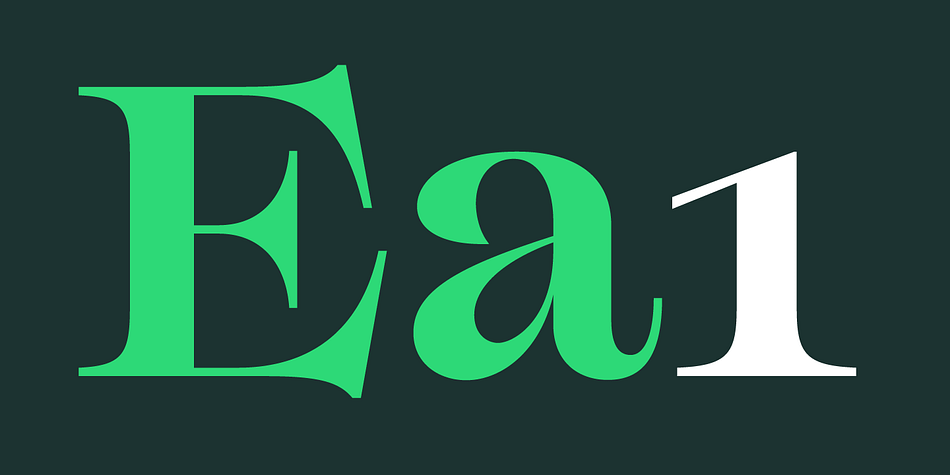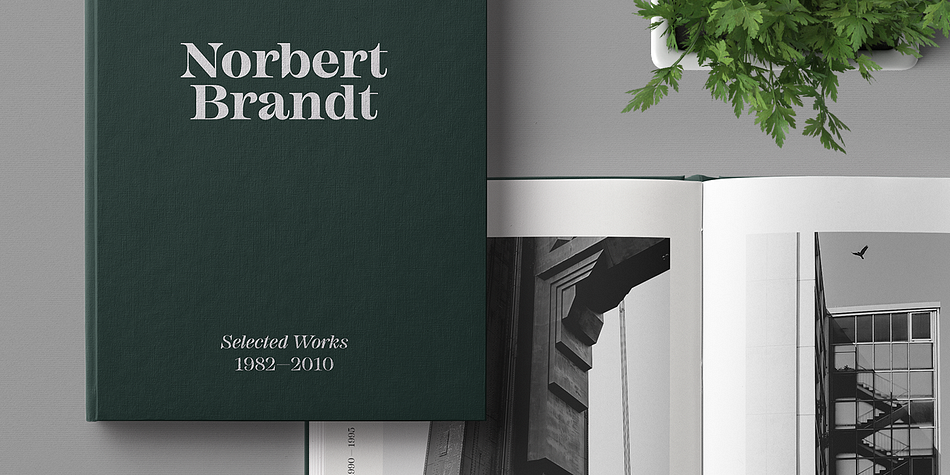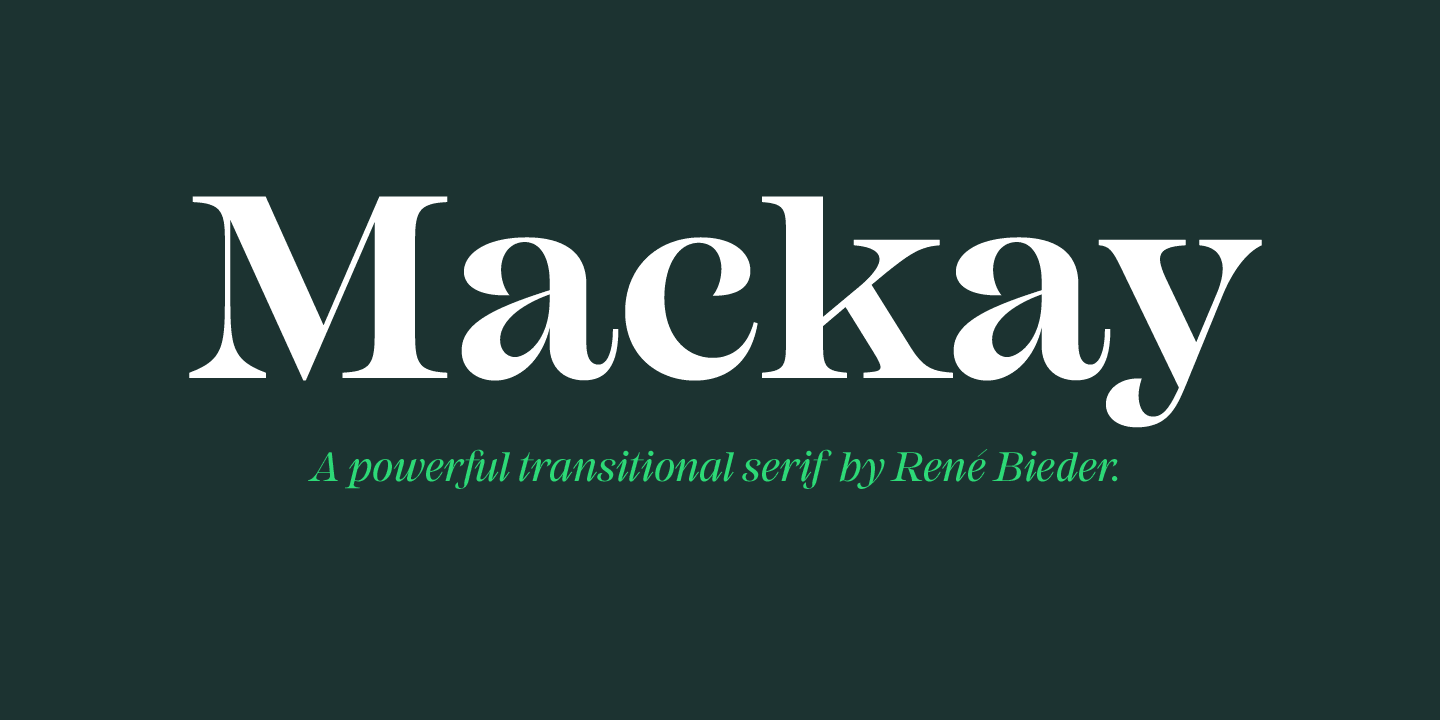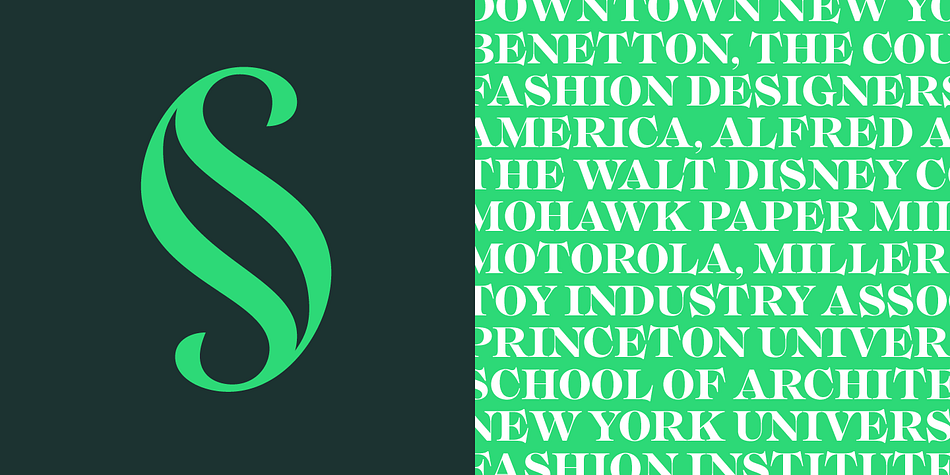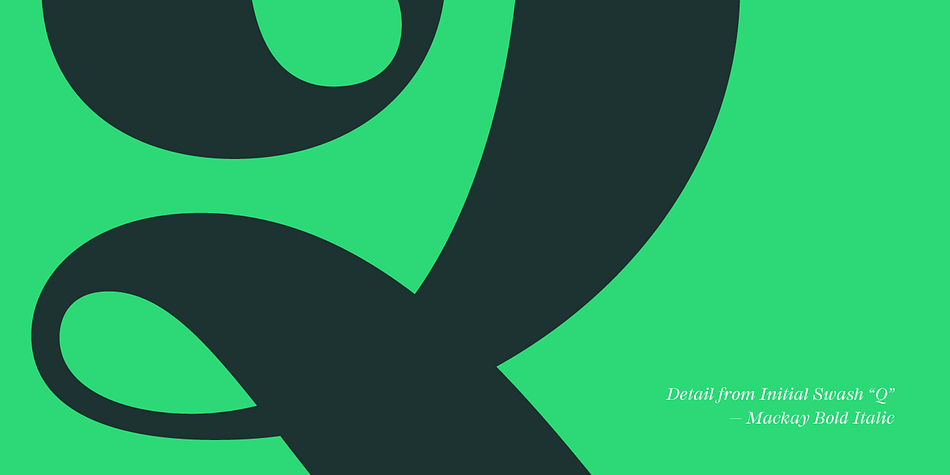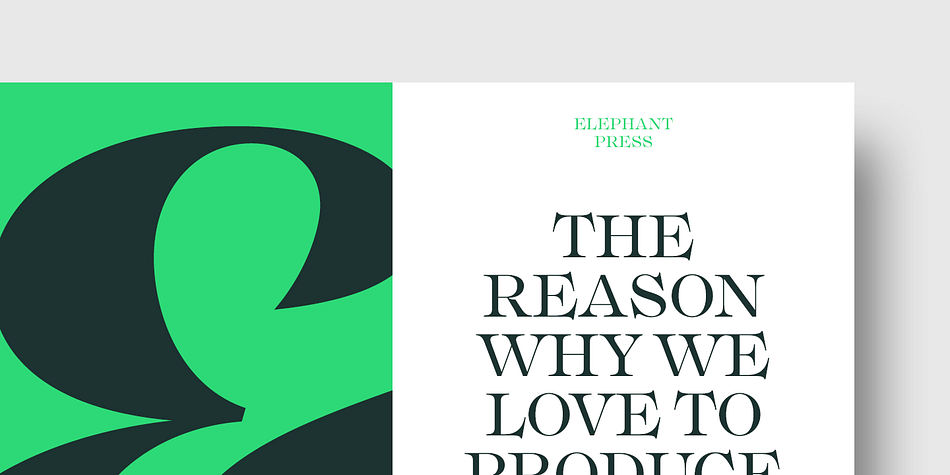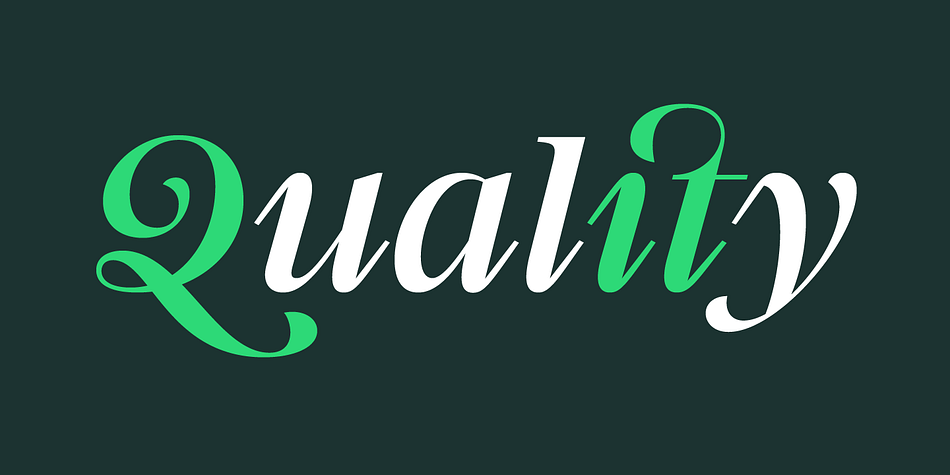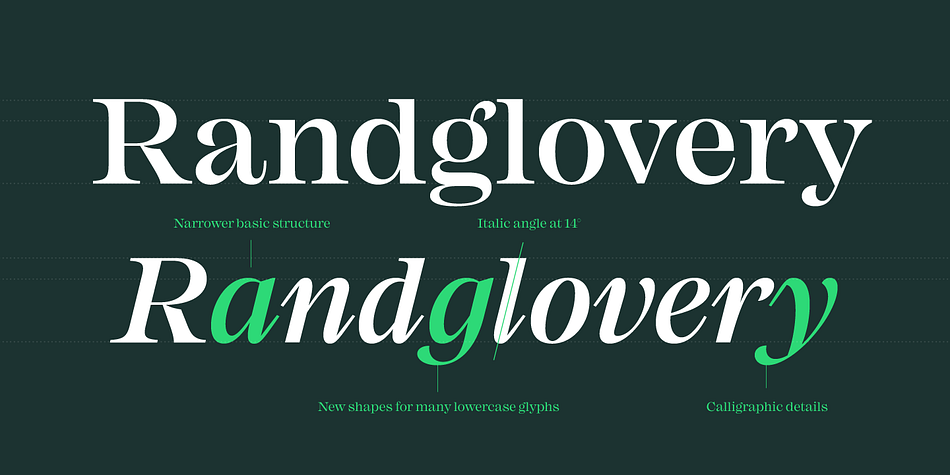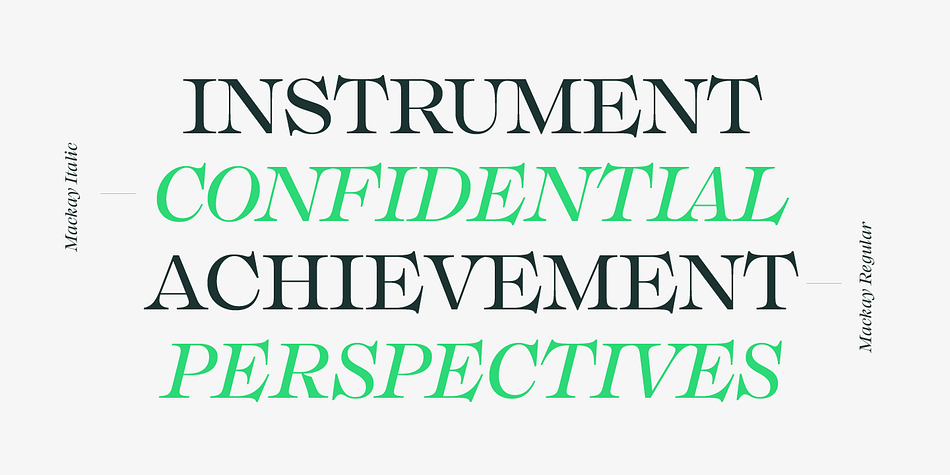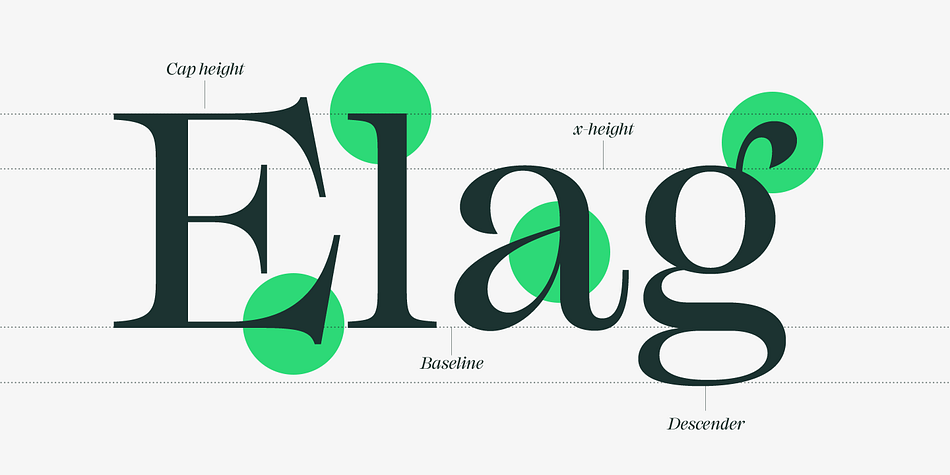
Designed by René Bieder, Mackay is a serif font family. This typeface has twelve styles and was published by René Bieder.
Mackay is a powerful transitional serif in 6 weights plus matching italics, designed for screen and print. The eccentric serifs on uppercase letters like E, F, L and T are inspired by Alexander Kay’s “Ronaldson” from 1884, working as the starting point for the family. The lowercase letters follow the traditional Antiqua model with attributes tracing back to drawings from the early 20th century.
The “grotesk” lowercase a, as well as the sharp lowercase s, derived from the closed shapes of uppercase letters like C, G or S, create a compact and bold appearance while a large x-height and small descenders add a modern look.
In favor of a dynamic and elegant impression, the design of the italic cuts come with a strong calligraphic influence. This results in completely new shapes for letters like lowercase a or g, ensuring a smooth integration into their surrounding letters while maintaining a distinctive appearance when combining with romans.
The family comes with a variety of opentype features like case sensitive shapes, old style figures, fractions, ordinals and many more. Additional attention was given to the standard and discretionary ligatures, extending the structure of the basic glyphs with elegantly designed letter combinations for g/i, i/t or s/t. According to their dynamic architecture, the italic weights are equipped with additional initial swash characters to subtle accentuate the calligraphic roots.
As a result of a high stroke contrast the family works great in paragraphs with medium to large font sizes like headlines, short paragraphs or logos. With its 12 cuts, the family meets all requirements on high quality typography.